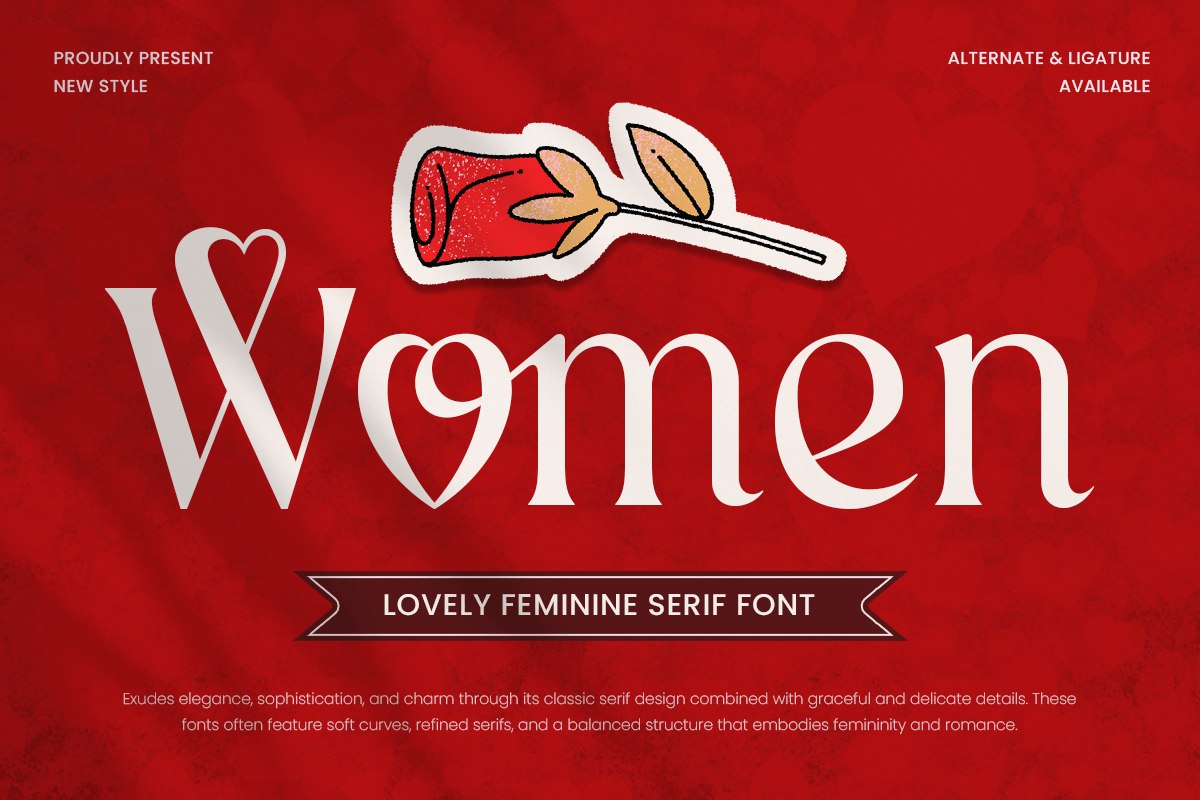
Women
-Lovely Feminine Serif Font
Women - Lovely Feminine Serif Font
Women is a lovely feminine serif font that embodies elegance, sophistication, and empowerment. Designed with graceful curves and refined details, this font is perfect for projects that celebrate femininity, confidence, and timeless beauty.
Ideal for luxury branding, fashion editorials, beauty packaging, wedding invitations, and inspirational quotes, Women font delivers a chic and stylish aesthetic. Whether used for bold headlines, delicate branding, or elegant social media graphics, this serif font brings a touch of class and modernity to your designs.
Celebrate International Women's Day, female-led brands, and creative empowerment with a font that reflects both delicacy and strength.
Women Font - Lovely Feminine Serif Font Features:
• Elegant and modern serif design
• Perfect for branding, fashion, and editorial projects
• Unique and Beauty Ligature Collections Ready
• OpenType features with stylish alternates
Celebrate feminine elegance and empowerment with Women font—the perfect serif font for chic and inspiring designs.